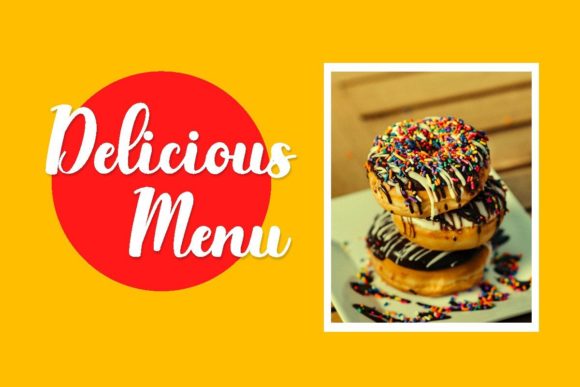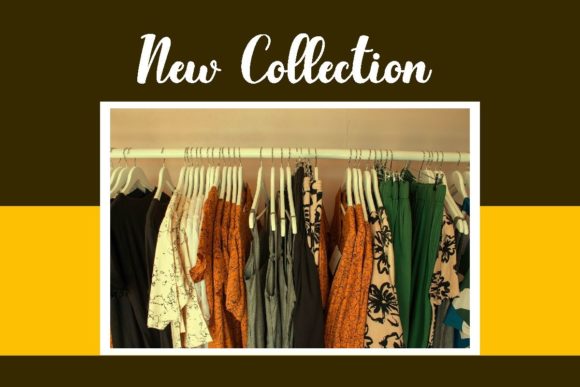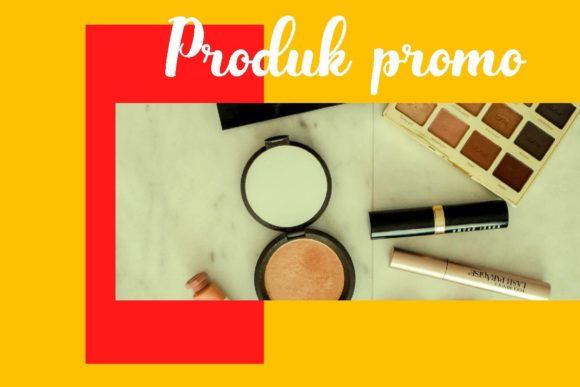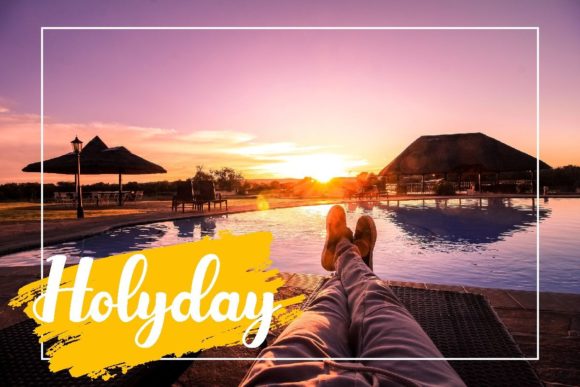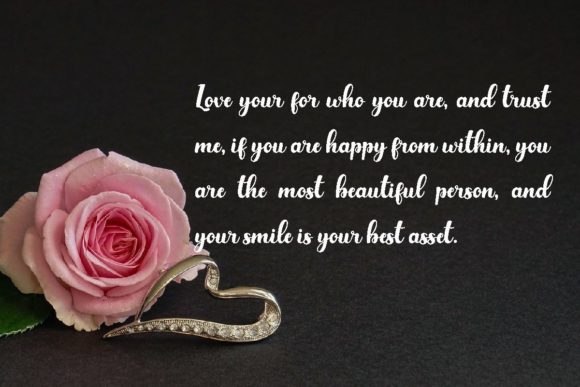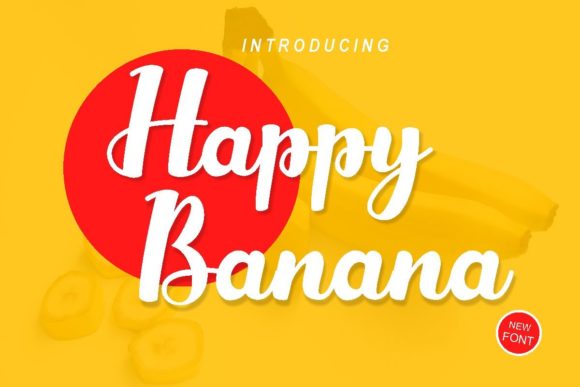
Introducing the Happy Banana Font: Add a Touch of Chic to Your Designs
Are you tired of using the same old fonts in your designs? Look no further than the Happy Banana Font, a stylish and trendy font that’s perfect for adding a customized touch to your projects. In this article, we’ll explore the features and benefits of the Happy Banana Font, and show you how to make the most of this versatile and chic font.
What is the Happy Banana Font?
The Happy Banana Font is a modern and elegant font that’s designed to add a touch of sophistication to your designs. With its clean lines, flowing curves, and playful feel, this font is perfect for a wide range of projects, from wedding invitations and thank you cards to quotes, greeting cards, and more.
Why Choose the Happy Banana Font?
So why choose the Happy Banana Font over other fonts? Here are just a few reasons why this font stands out:
- Chic and Trendy: The Happy Banana Font is incredibly chic and trendy, making it perfect for designers who want to stay on top of the latest design trends.
- Versatile: This font is versatile and can be used for a wide range of projects, from formal events like weddings and galas to more casual designs like greeting cards and quotes.
- Customized Touch: The Happy Banana Font adds a customized touch to your designs, making them stand out from the crowd and giving them a unique and personalized feel.
How to Use the Happy Banana Font
Using the Happy Banana Font is easy! Here are a few tips for incorporating this font into your designs:
- Wedding Invitations: The Happy Banana Font is perfect for wedding invitations, adding a touch of elegance and sophistication to your wedding stationery.
- Thank You Cards: Use the Happy Banana Font to add a personalized touch to your thank you cards, making them feel more special and unique.
- Quotes and Greeting Cards: The Happy Banana Font is also great for quotes and greeting cards, adding a playful and whimsical feel to your designs.
The Happy Banana Font is a great choice for designers and crafters who want to add a touch of chic and sophistication to their designs. Here are just a few benefits of using this font:
- Easier to Read: The Happy Banana Font is easy to read, making it perfect for designs that require a lot of text, such as wedding invitations and greeting cards.
- Highly Versatile: This font is highly versatile and can be used for a wide range of projects, from formal events to more casual designs.
- Unique and Personalized: The Happy Banana Font adds a unique and personalized touch to your designs, making them stand out from the crowd.
In conclusion, the Happy Banana Font is a stylish and trendy font that’s perfect for designers and crafters who want to add a touch of chic and sophistication to their designs. With its clean lines, flowing curves, and playful feel, this font is versatile and can be used for a wide range of projects. Whether you’re designing wedding invitations, thank you cards, quotes, or greeting cards, the Happy Banana Font is a great choice. So why not give it a try and see how it can elevate your designs?